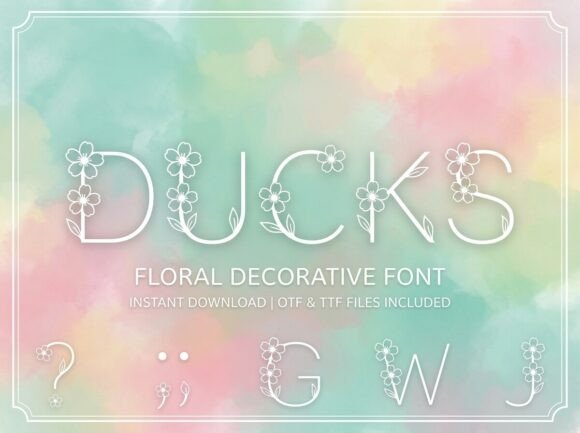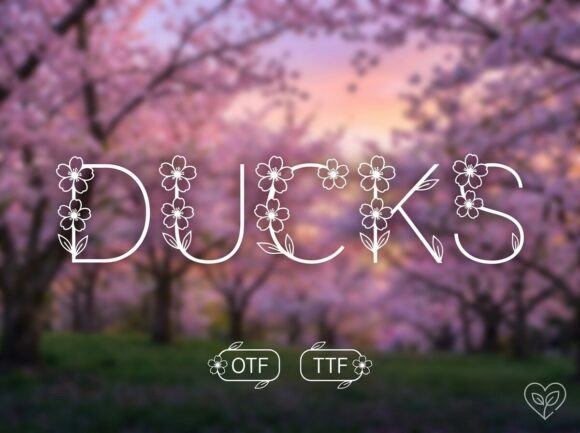
Introducing Ducks Font: The Epitome of Elegance and Renewal
Are you tired of using the same old fonts for your designs? Look no further than Ducks Font, a delicate display typeface that embodies the beauty of renewal. With its elegant, monolinear letterforms and romantic botanical charm, Ducks Font is the perfect choice for designers and crafters looking to add a touch of sophistication to their work.
The Inspiration Behind Ducks Font
Ducks Font is inspired by the serene and floral beauty of nature. The font features rhythmic cherry blossoms, budding leaves, and swirling vines that gracefully adorn each letterform. The result is a font that exudes a sense of elegance and refinement, perfect for designs that require a touch of whimsy and romance.
Key Features of Ducks Font
- Elegant Monolinear Letterforms: Ducks Font features elegant, monolinear letterforms that are both refined and sophisticated.
- Romantic Botanical Charm: The font’s botanical elements, including cherry blossoms, budding leaves, and swirling vines, add a touch of romance and whimsy to each design.
- Airy Structure: The font’s airy structure gives it a light and effortless feel, perfect for designs that require a sense of freedom and movement.
Ducks Font is the premier choice for a variety of design projects, including:
- Independent Florist Branding: Ducks Font is perfect for florists looking to create a unique and memorable brand identity.
- Spring-Themed Event Invitations: The font’s floral and serene beauty makes it ideal for spring-themed event invitations, including weddings, baby showers, and Easter celebrations.
- Artisanal Garden Packaging: Ducks Font is a great choice for artisanal garden packaging, including plant labels, seed packets, and gardening gloves.
- High-Impact Social Media Headers: The font’s bold and elegant design makes it perfect for high-impact social media headers that require a touch of sophistication and refinement.
Why Choose Ducks Font?
There are many reasons why designers and crafters should choose Ducks Font for their design projects. Here are just a few:
- Unique and Eye-Catching: Ducks Font is a unique and eye-catching font that is sure to grab attention.
- Versatile: The font’s elegant and refined design makes it versatile enough to use in a variety of design projects.
- Easy to Read: Despite its elegant and refined design, Ducks Font is easy to read, even in smaller sizes.
Tips for Using Ducks Font
Here are a few tips for using Ducks Font in your design projects:
- Use it as a Display Font: Ducks Font is perfect for use as a display font, where its elegant and refined design can be showcased.
- Pair it with a Simple Font: For body text, pair Ducks Font with a simple font to create a striking contrast.
- Experiment with Colors: Ducks Font looks great in a variety of colors, so don’t be afraid to experiment and find the perfect hue for your design.
| Font Name | Ducks Font |
| Author | clipartguru |